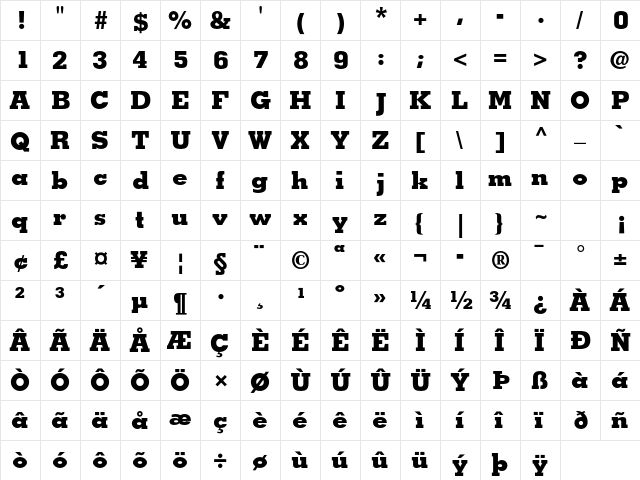
Memphis LT Std Extra Bold Font Preview
Memphis LT Std Extra Bold
Memphis LT Std Extra Bold Font Details
| Style | Extra Bold |
| Designer | Dr. Rudolf Wolf |
Design Context for Memphis LT Std Typeface
Memphis LT Std takes a measured approach to typography — its balanced proportions and neutral character make it a reliable workhorse for both digital and print work. Its bold stroke weight gives it real presence on the page.